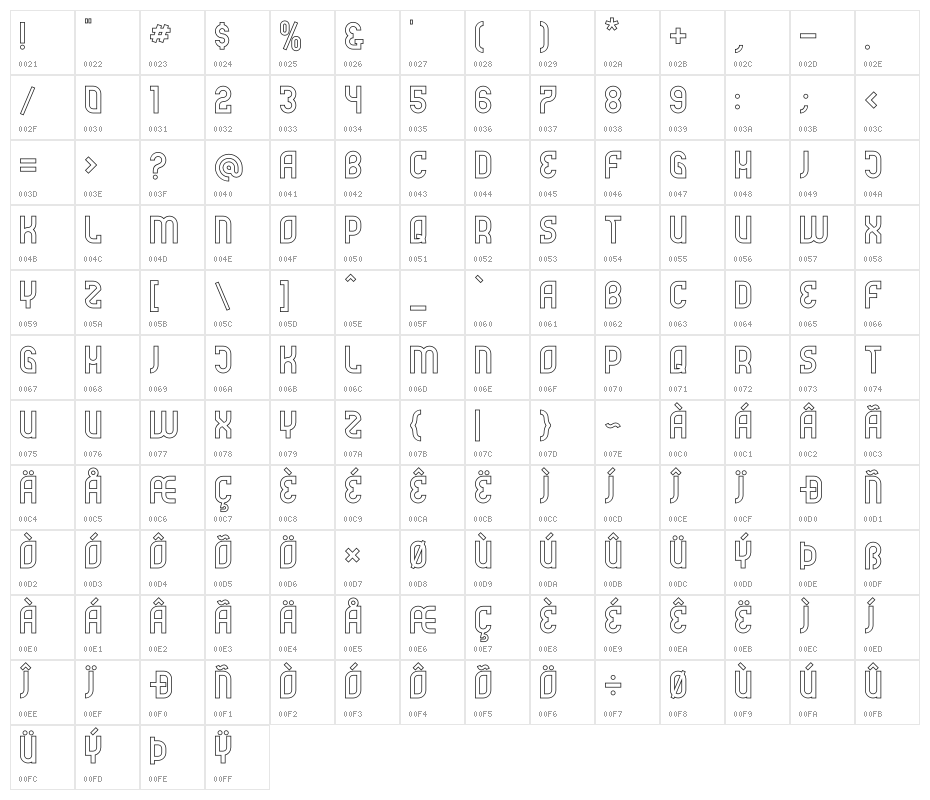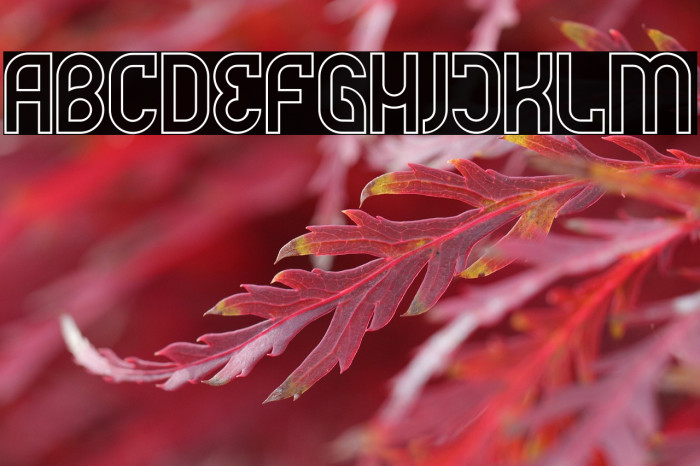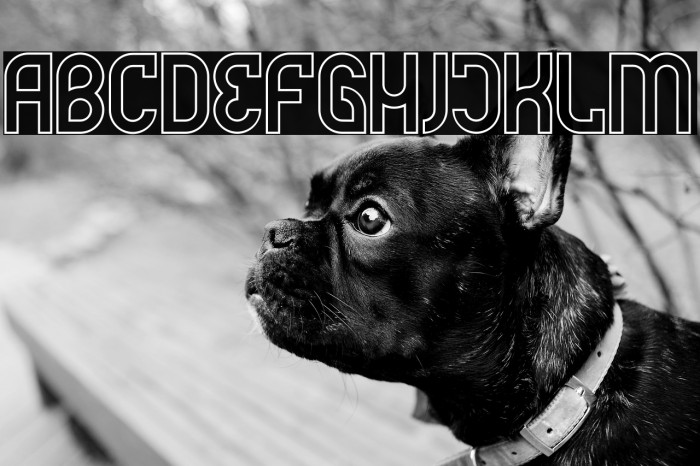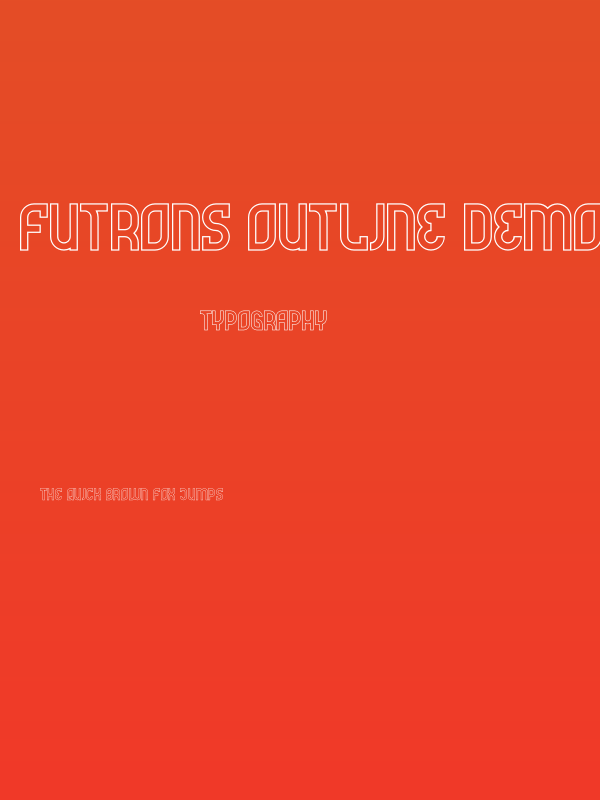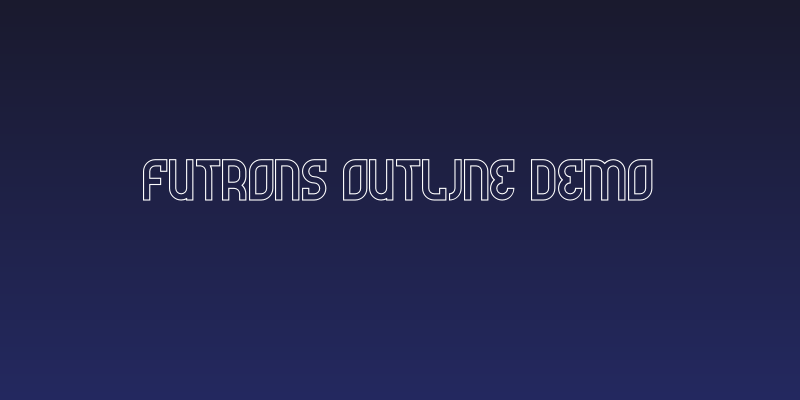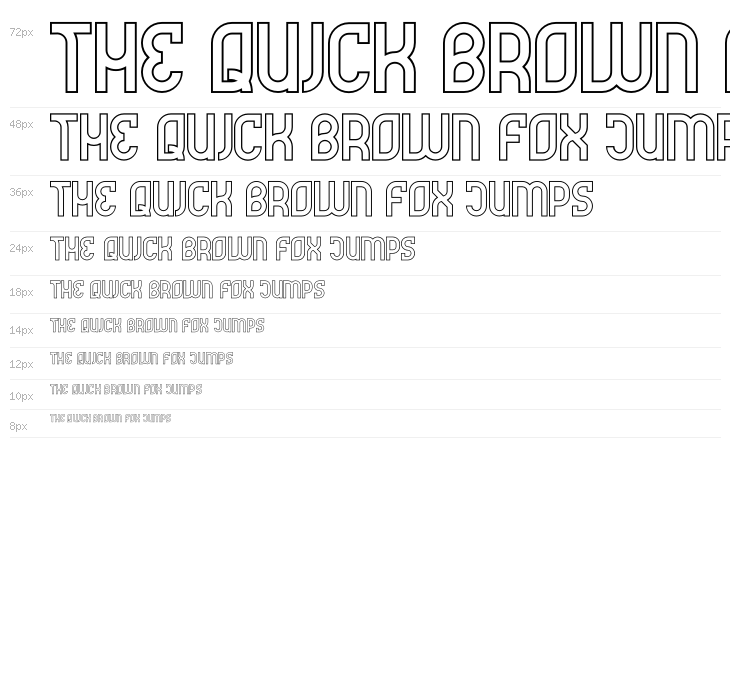
Futrons Outline Demo Font
Futrons Outline Demo Description
This font features a modern, geometric outline style with clean lines and a futuristic aesthetic. Each character is crafted with precision, showcasing a consistent stroke width that forms a hollow, outlined appearance. The uppercase and lowercase letters maintain a uniform height, contributing to a cohesive look. The numerals and special characters follow the same design principles, ensuring a harmonious integration with the alphabet. This font's unique outline design makes it stand out, offering a contemporary and stylish option for various creative projects.
| Proposed Projects | Ideal for branding, posters, digital artwork, and futuristic-themed designs. |